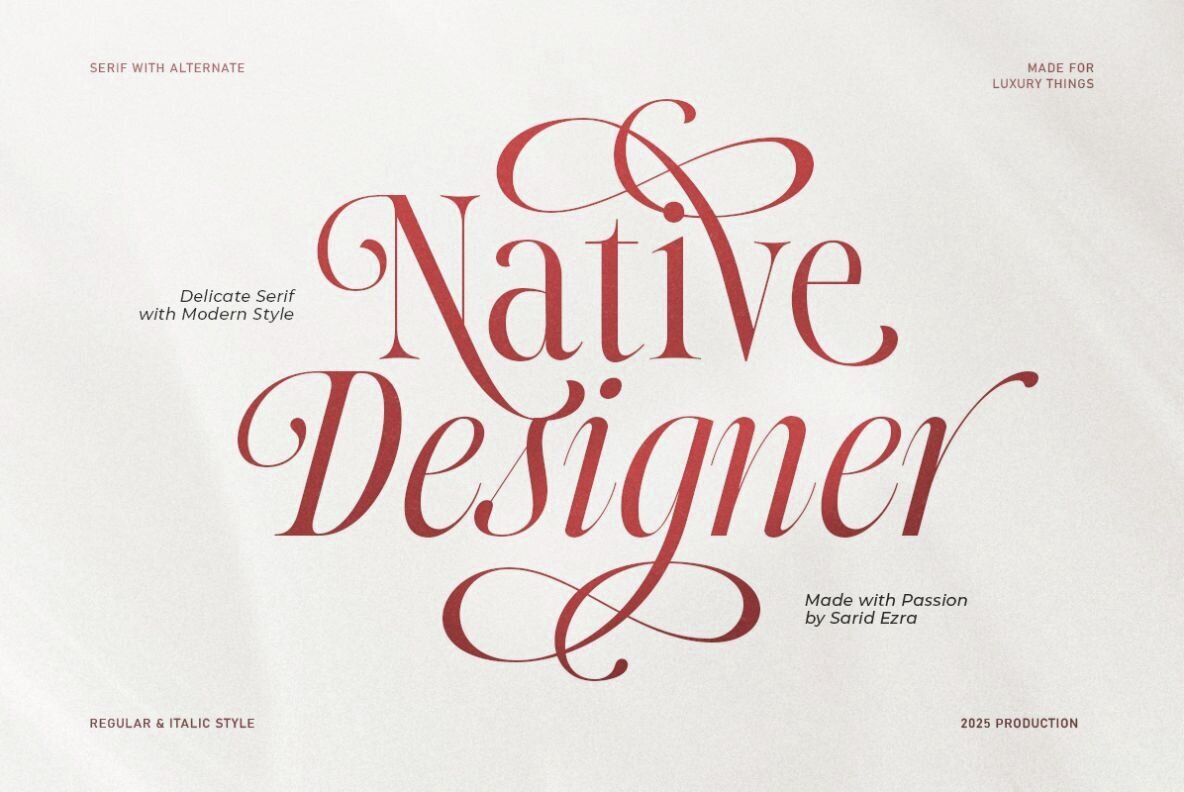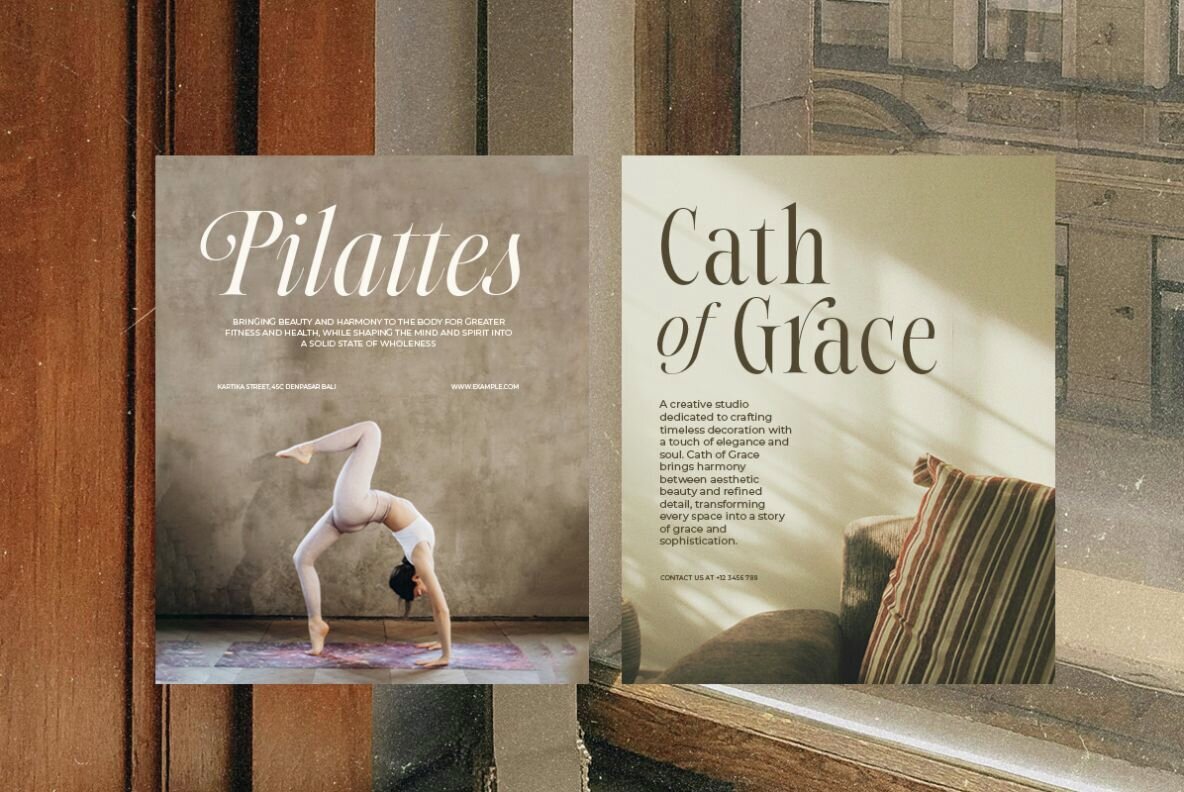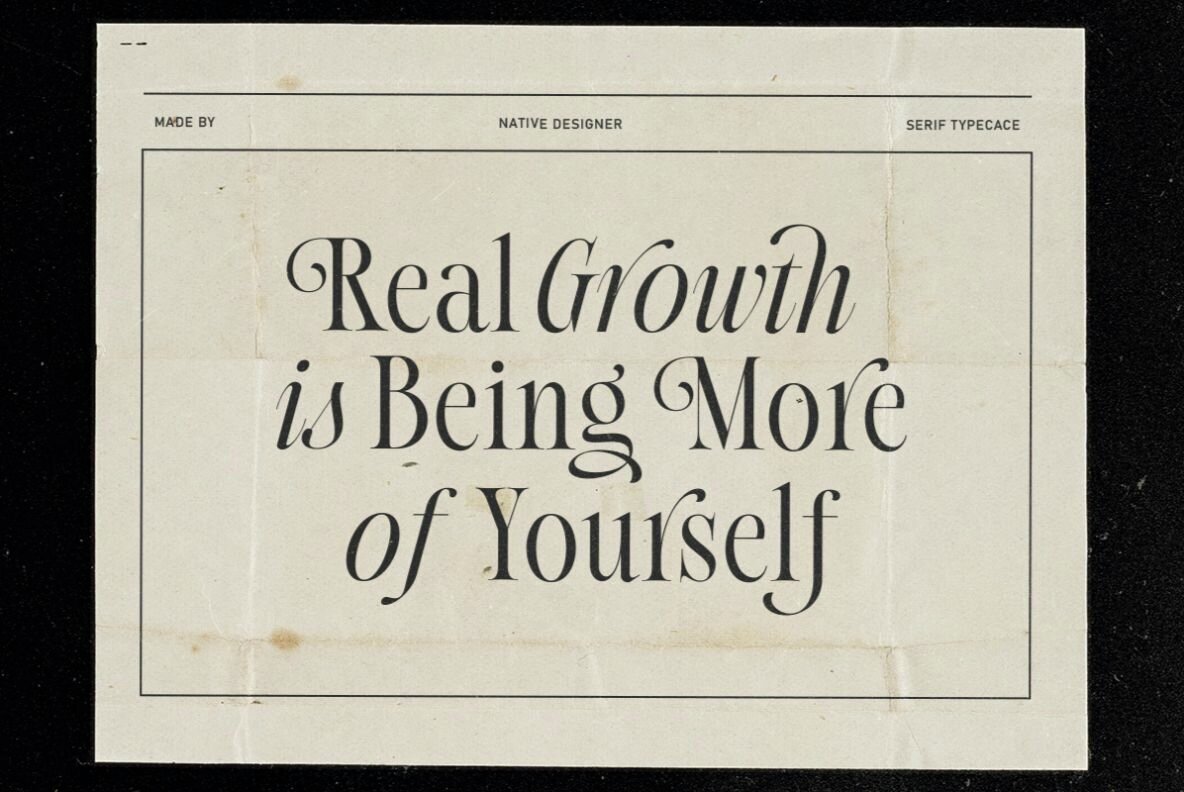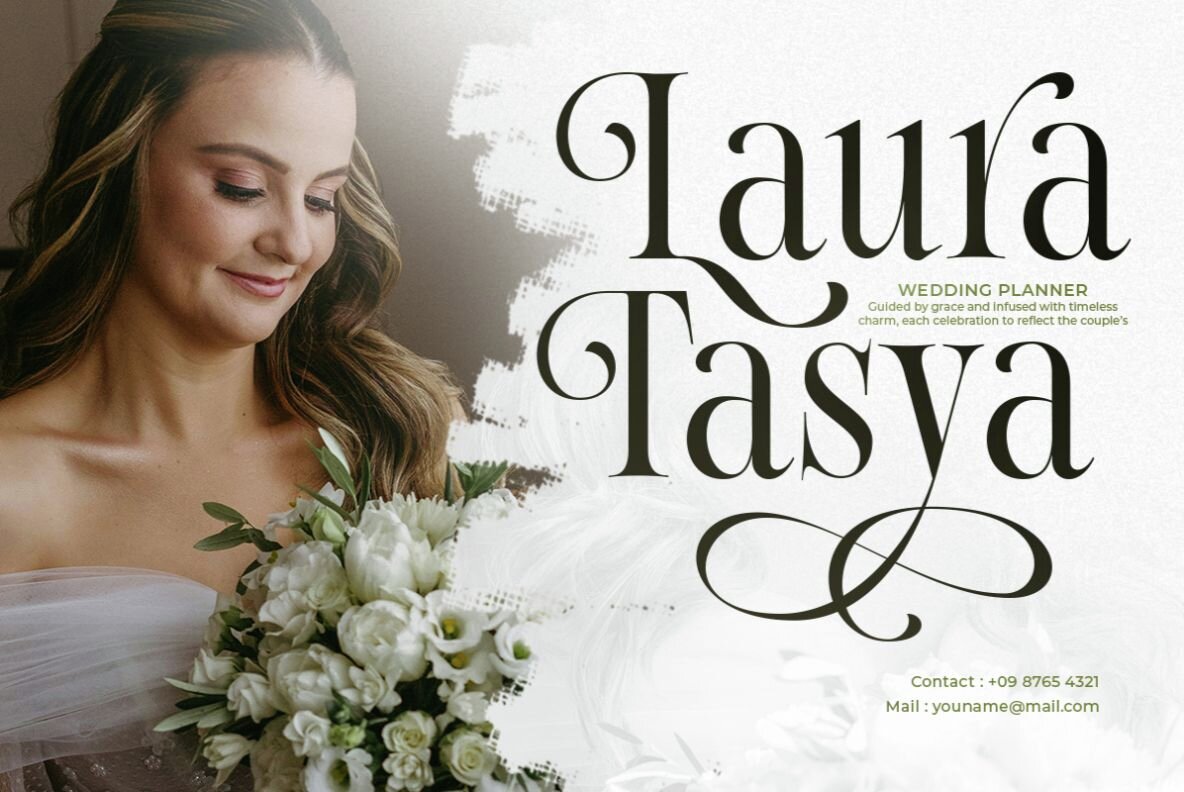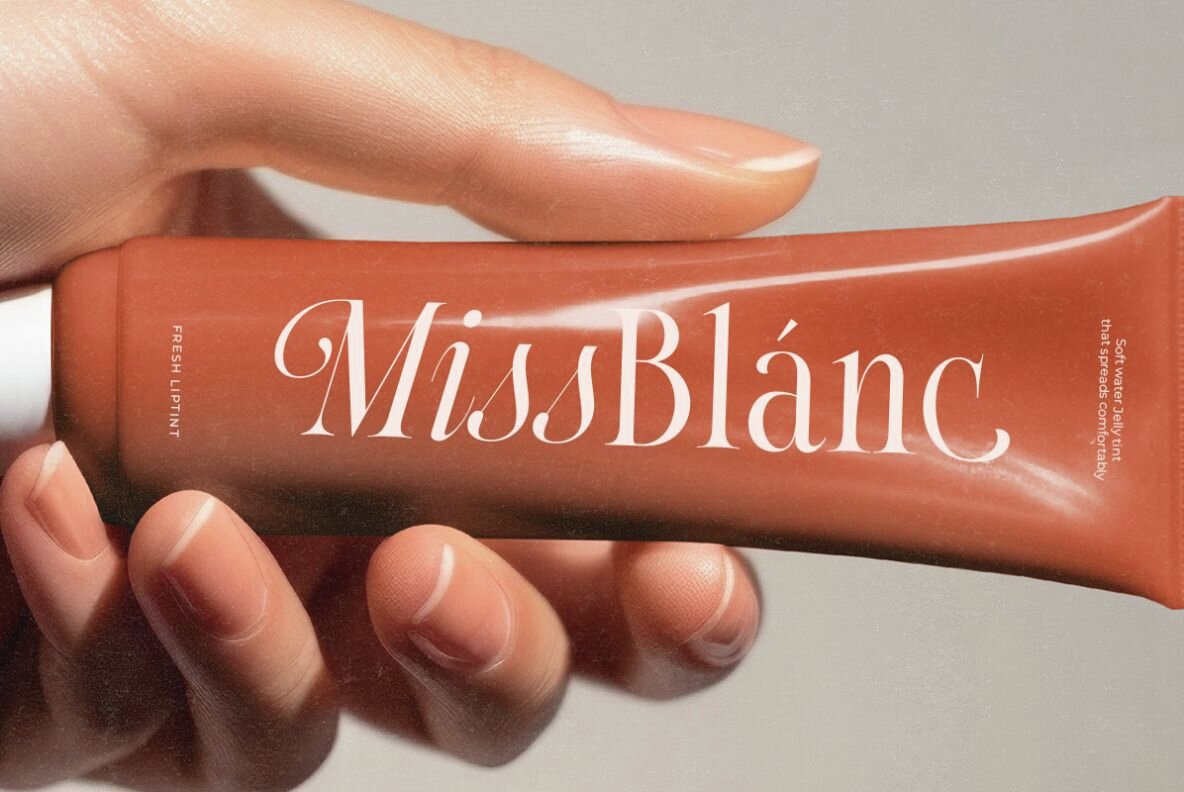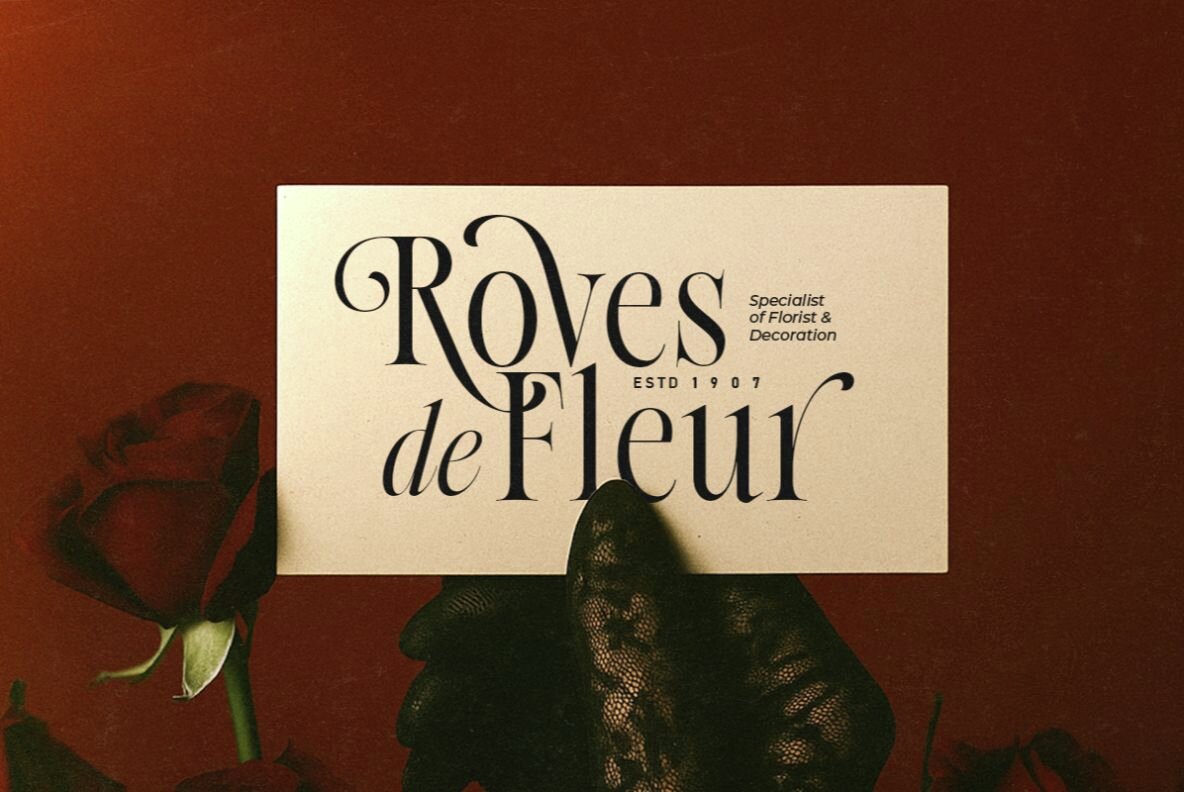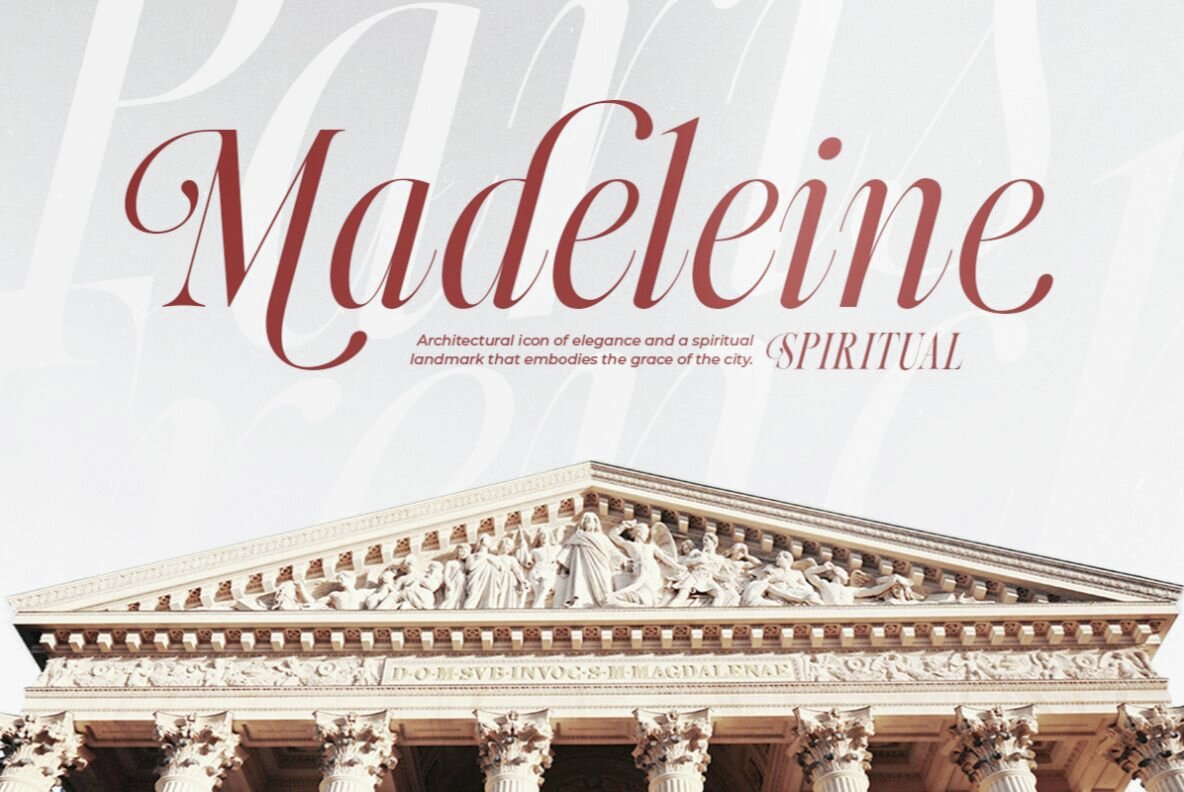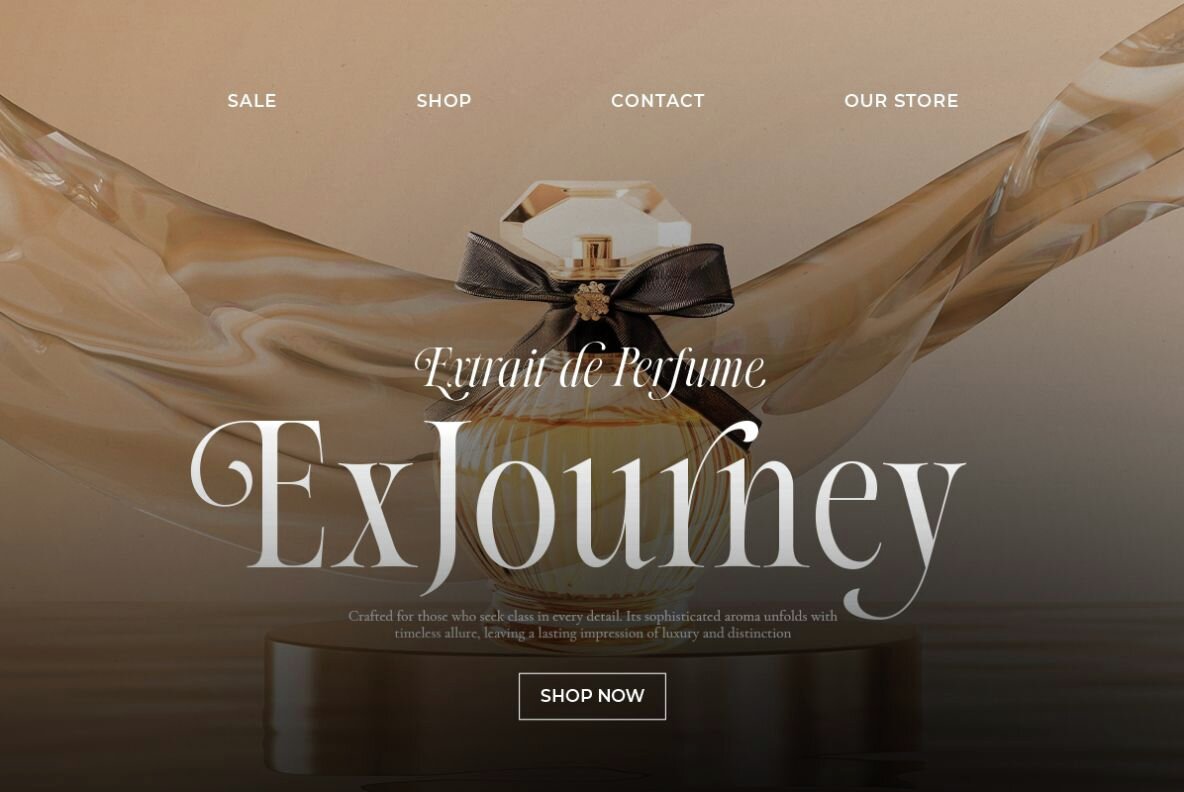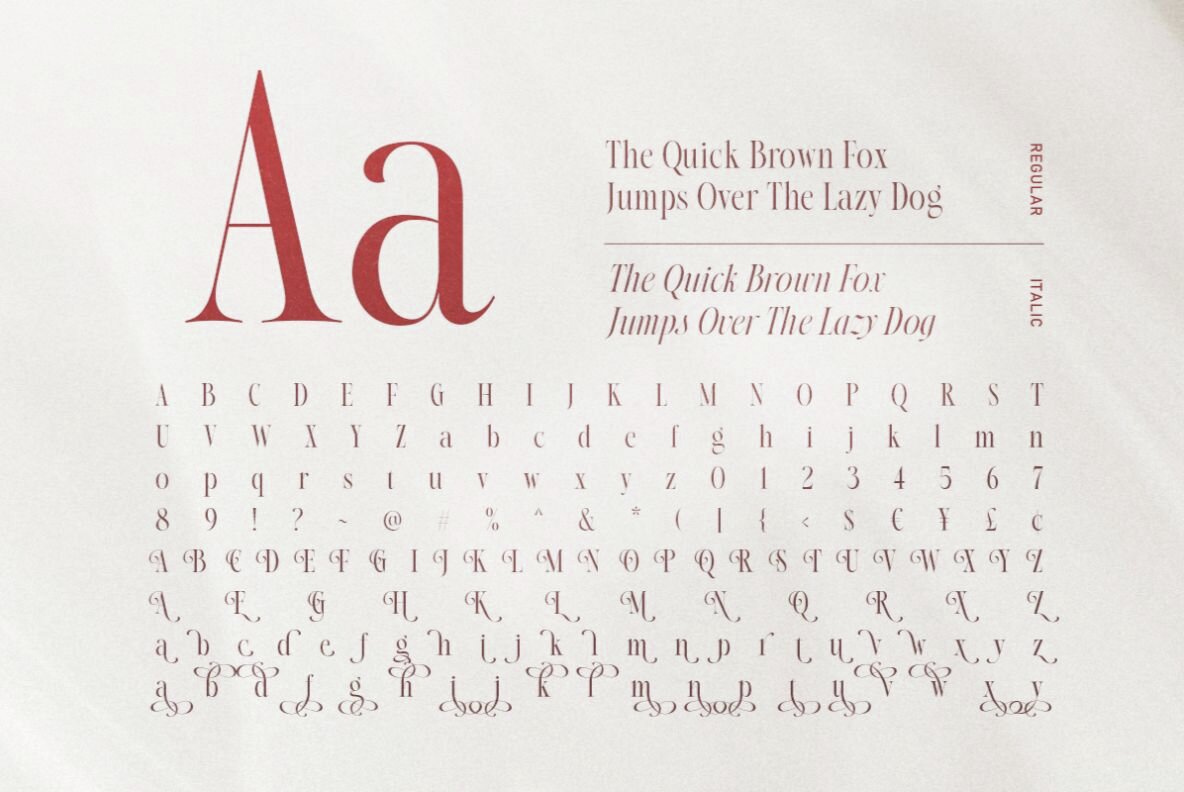
Native Designer Font
Native Designer Regular
Native Designer Italic
The Native Designer serif family embodies a seamless blend of classic elegance and contemporary style. Its luxurious appearance makes it a perfect choice for a wide range of design applications, from wedding invitations to logos and branding projects. The inclusion of true italic versions ensures versatility, allowing it to adapt beautifully to various design needs. With its combination of modern aesthetics and classic serif sophistication, the Native Designer serif family is an ideal choice for adding a touch of glamour to any project.Native Designer: Elegance in Serif Typography